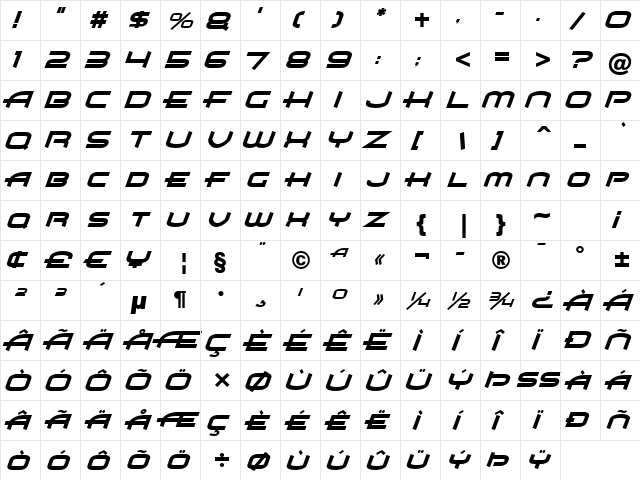
Air Flow BTN Hv Oblique Font Preview
Air Flow BTN Hv Oblique
Air Flow BTN Hv Oblique Font Details
Design Context for Air Flow BTN Hv Typeface
Air Flow BTN Hv takes a measured approach to typography — its balanced proportions and neutral character make it a reliable workhorse for both digital and print work. The dynamic lean of this cut emphasises speed and emphasis in any layout.
Pro Tip: Use Air Flow BTN Hv for emphasis, pull quotes, and subheadings where its slanted energy can add rhythm to the layout.